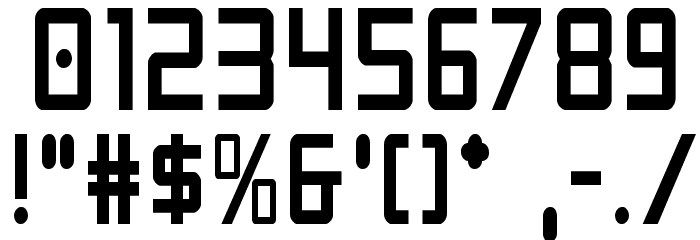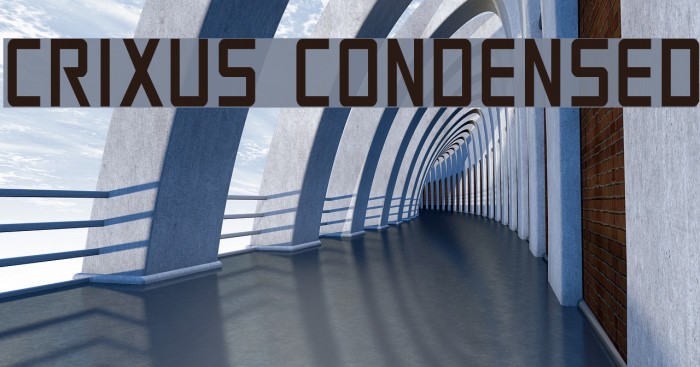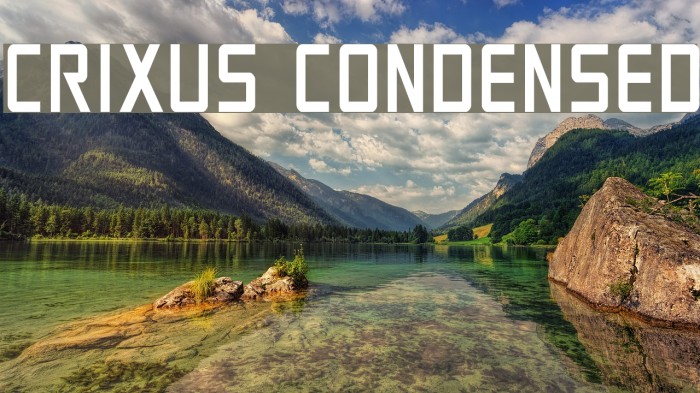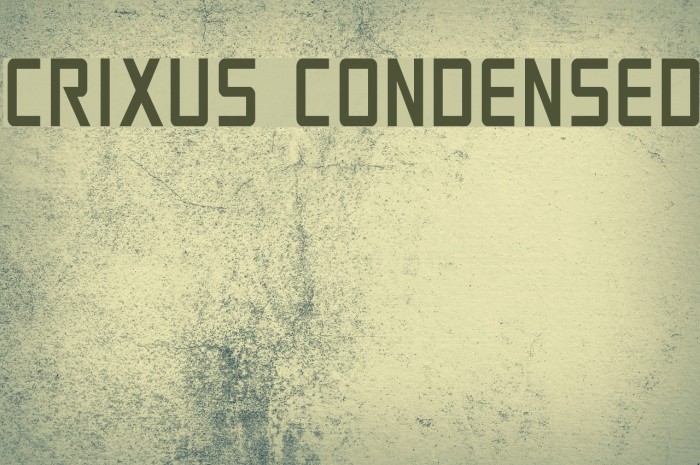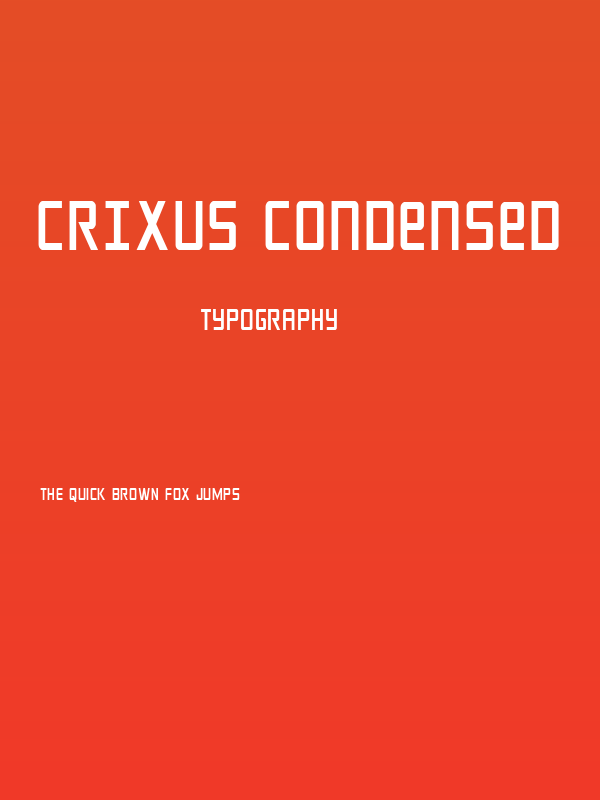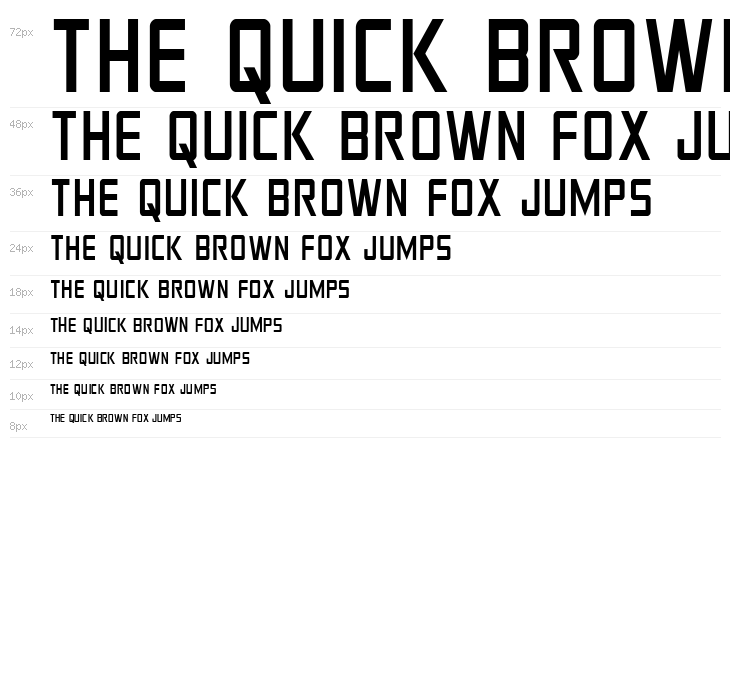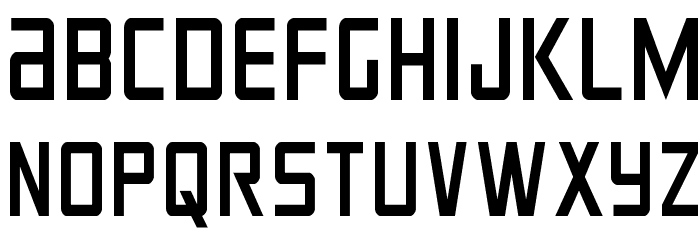
Crixus Condensed Font
Crixus Condensed Description
This font features a geometric and modern design with a condensed structure, offering a clean and bold appearance. The characters are uniformly aligned with a consistent stroke width, providing a sense of balance and precision. The uppercase and lowercase letters maintain a similar height, enhancing readability and uniformity. The numerals are distinct and clear, matching the overall style of the alphabet. Special characters are well-integrated, maintaining the font's cohesive look. The font's condensed nature makes it suitable for space-saving applications while retaining legibility.
| Proposed Projects | Ideal for branding, posters, headlines, and any design requiring a modern and space-efficient typeface. |